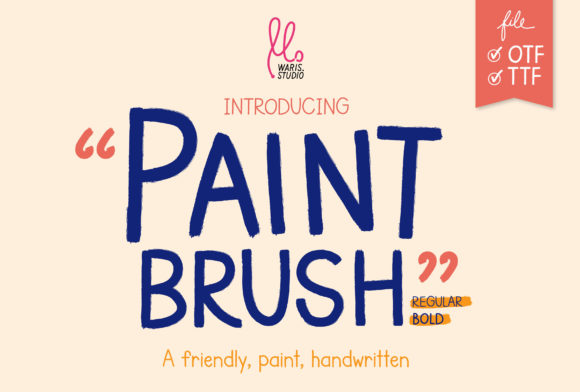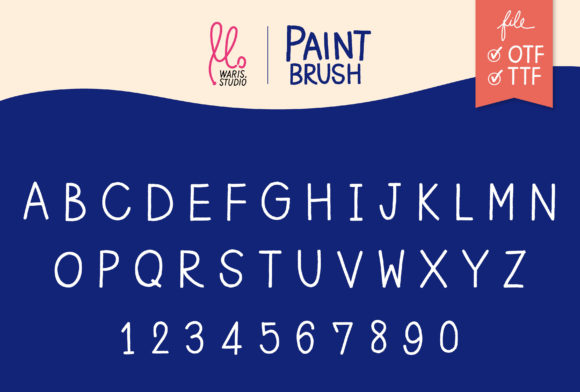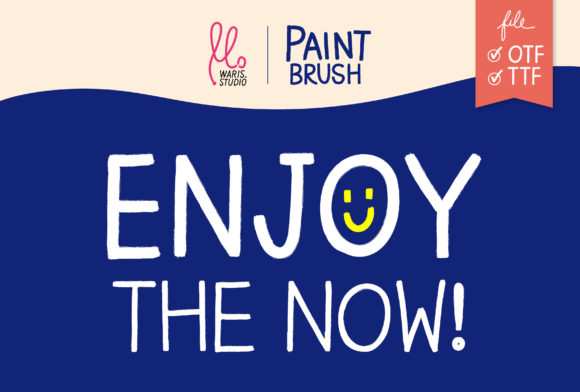
Paint Brush Font
About Paint Brush Font
Introducing “Paint Brush,” a friendly handwritten font that brings an authentic and personal touch to your designs. Designed with the look and feel of a paintbrush stroke, this font is perfect for all your chalkboard quotes and teaching materials.
With its natural and organic style, “Paint Brush” adds a sense of warmth and familiarity to your designs. Each letter has a unique hand-drawn quality, capturing the essence of a brushstroke on a chalkboard. This authenticity creates a realistic and inviting atmosphere, perfect for educational resources, classroom displays, and artistic projects.
Whether you’re creating chalkboard quotes, educational posters, or instructional materials, “Paint Brush” adds a personal and human touch. Its uneven lines and irregular shapes emulate the imperfections of hand-drawn letters, giving your designs a genuine and relatable feel. This font brings a sense of craftsmanship and creativity to your projects.
The versatility of “Paint Brush” allows it to adapt to various design styles and themes. From playful and whimsical to elegant and sophisticated, this font can be adjusted to match your desired aesthetic. By adjusting the stroke weight or playing with different letter combinations, you can create a customized look that suits your specific project.
In the realm of teaching materials, “Paint Brush” adds a sense of authenticity and creativity. Whether you’re designing lesson plans, flashcards, or classroom signage, this font creates a welcoming and engaging environment for students. It brings a personal touch that connects with learners, making educational content more relatable and enjoyable.
For chalkboard-inspired designs, “Paint Brush” enhances the nostalgic and rustic ambiance. It recreates the charm of handwritten messages on a chalkboard, evoking a sense of nostalgia and familiarity. Whether you’re designing restaurant menus, wedding signage, or event posters, this font adds a touch of handmade authenticity.
Additionally, “Paint Brush” can be used for a variety of creative projects beyond teaching materials. It’s perfect for creating custom greeting cards, handmade invitations, or personalized artwork. With its friendly and approachable style, this font adds a personal touch that makes your designs stand out.
Embrace the natural and authentic feel of “Paint Brush” and let it infuse your designs with warmth and character. Whether you’re creating educational resources, chalkboard-inspired artwork, or any project that needs a personal touch, this font will bring a realistic and genuine feel to your designs.
So grab your virtual paintbrush and let “Paint Brush” add a personal and realistic touch to your designs. With its friendly and handwritten style, it will make your chalkboard quotes and teaching materials come alive with authenticity and creativity.